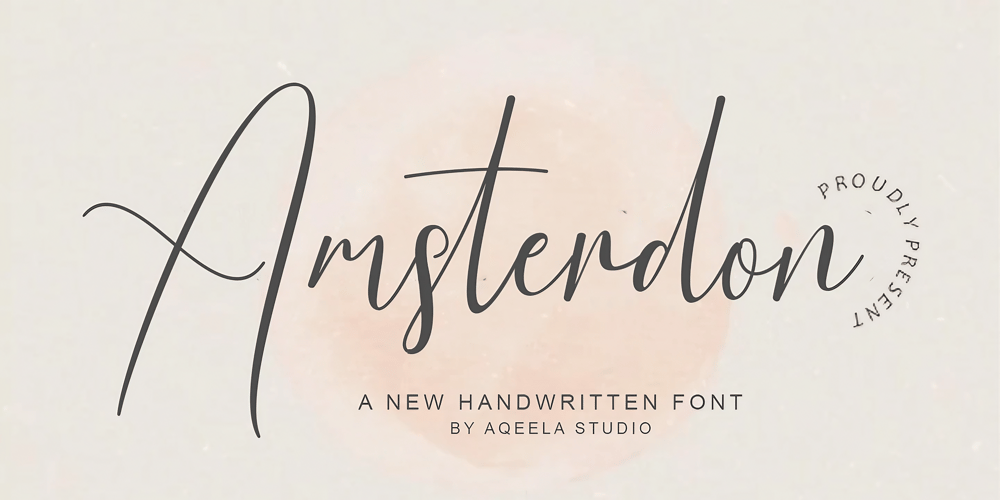
Amsterdon Font Family was designed by Muhammad Nasir and published by Aqeela Studio. Amsterdon contains 1 styles and family package options. Amsterdon is a striped font with a bouncing look. It adds a personal touch to your lovely creations, making it ideal for your personalized craft projects. This ornate typeface will simultaneously add elegance and sweetness to your design.